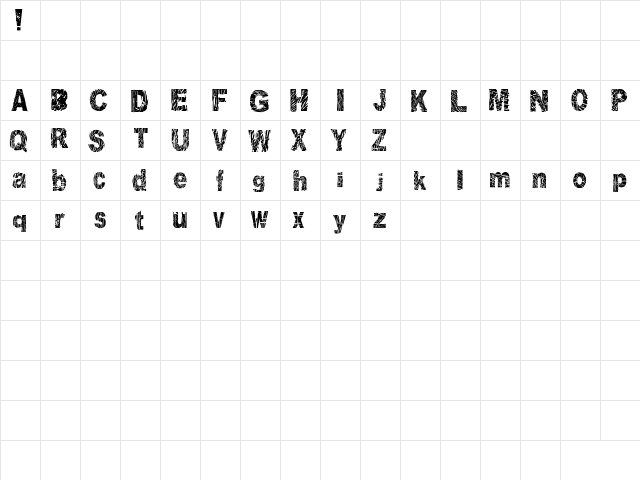
Disorted and Scratchy Regular Font Preview
Disorted and Scratchy Regular
Disorted and Scratchy Regular Font Details
Design Context for Disorted and Scratchy Typeface
Disorted and Scratchy is a composed and adaptable typeface that performs quietly and consistently across a wide range of design contexts.